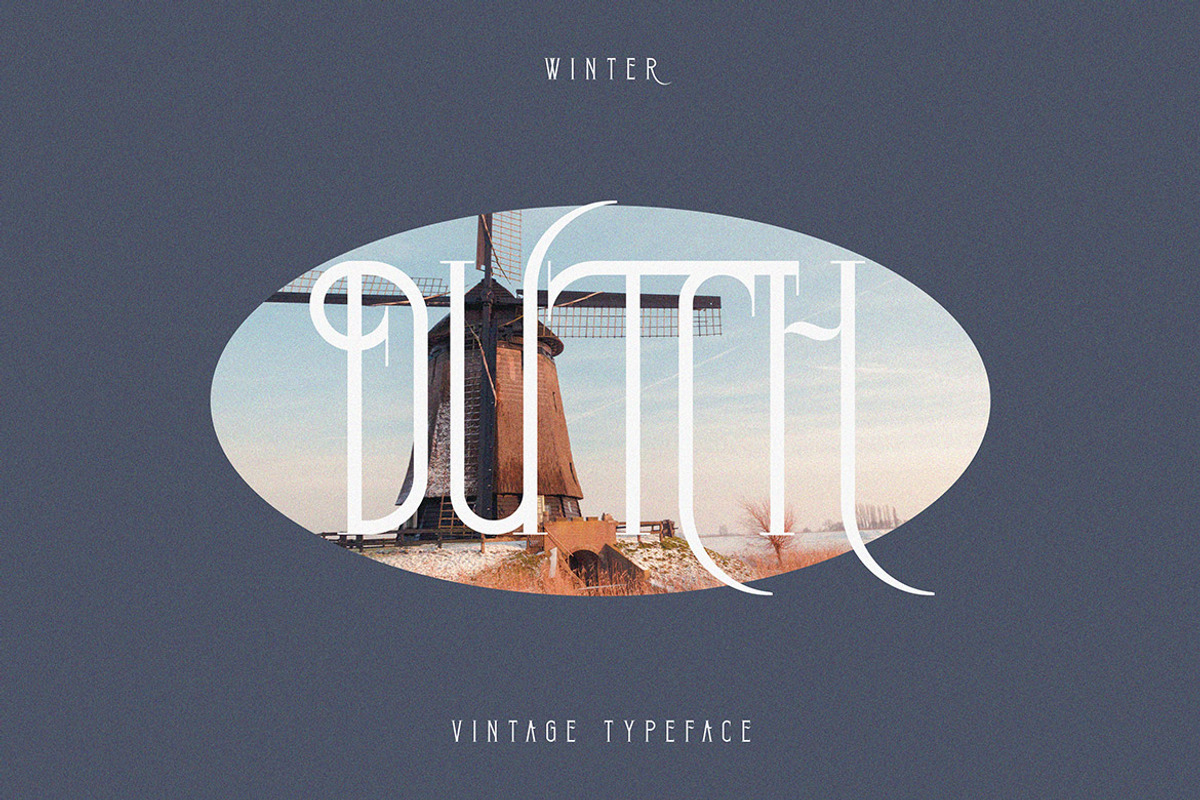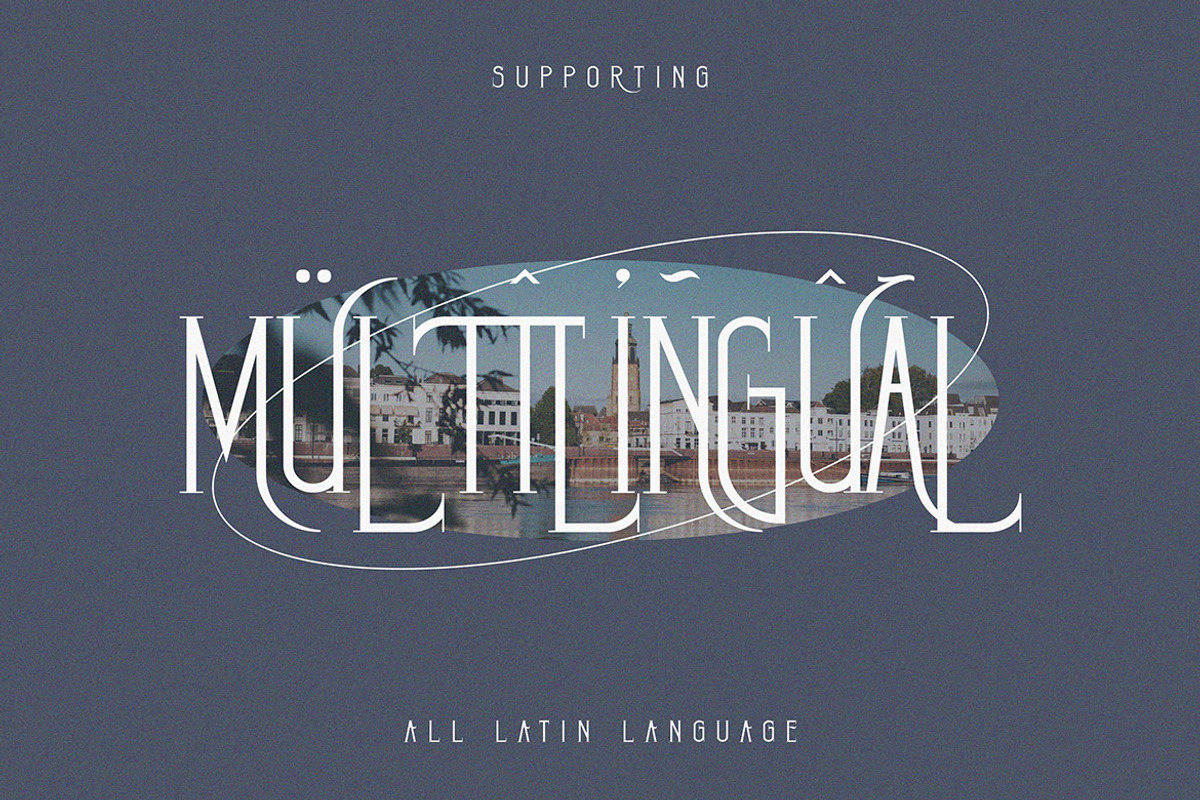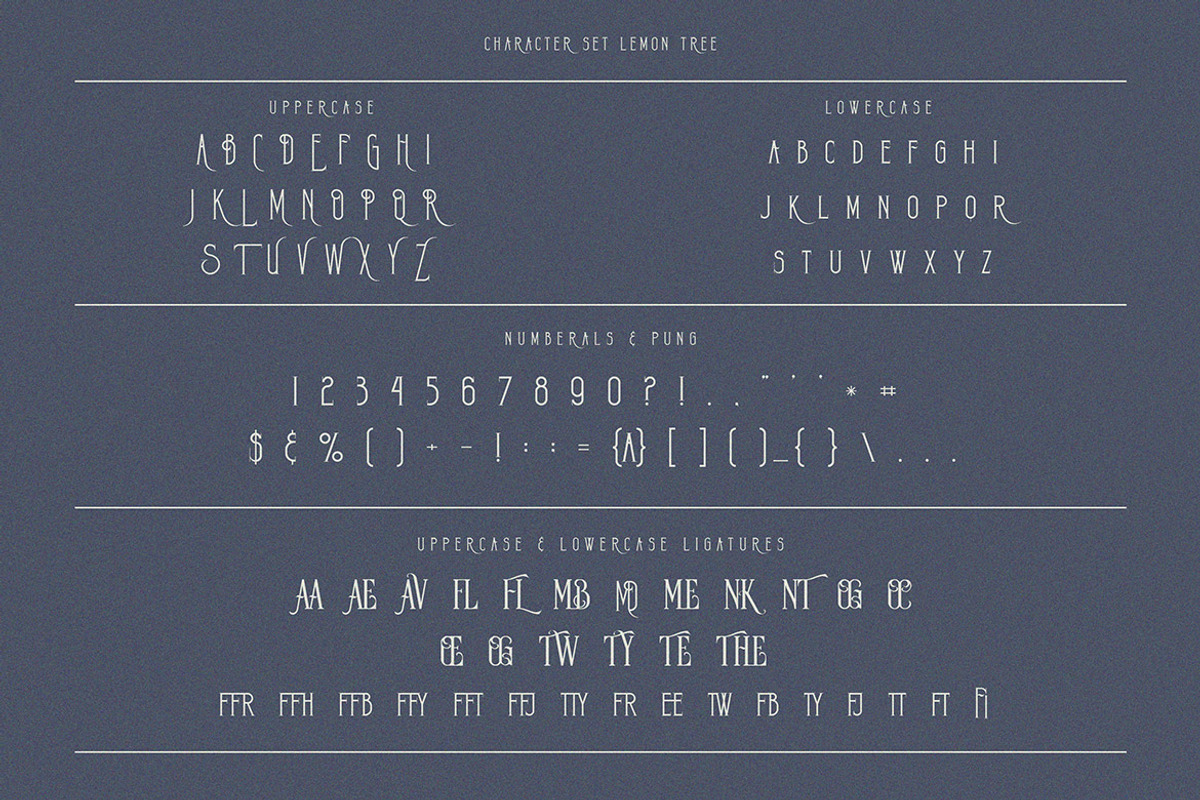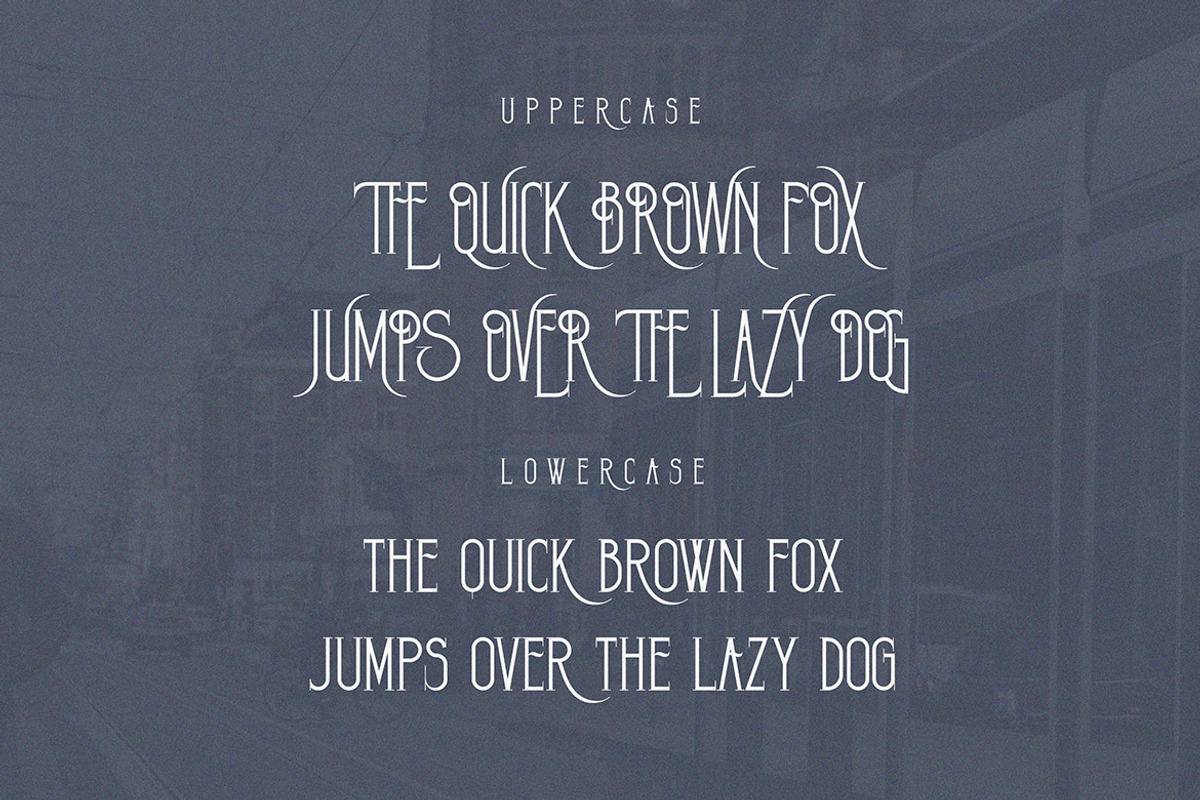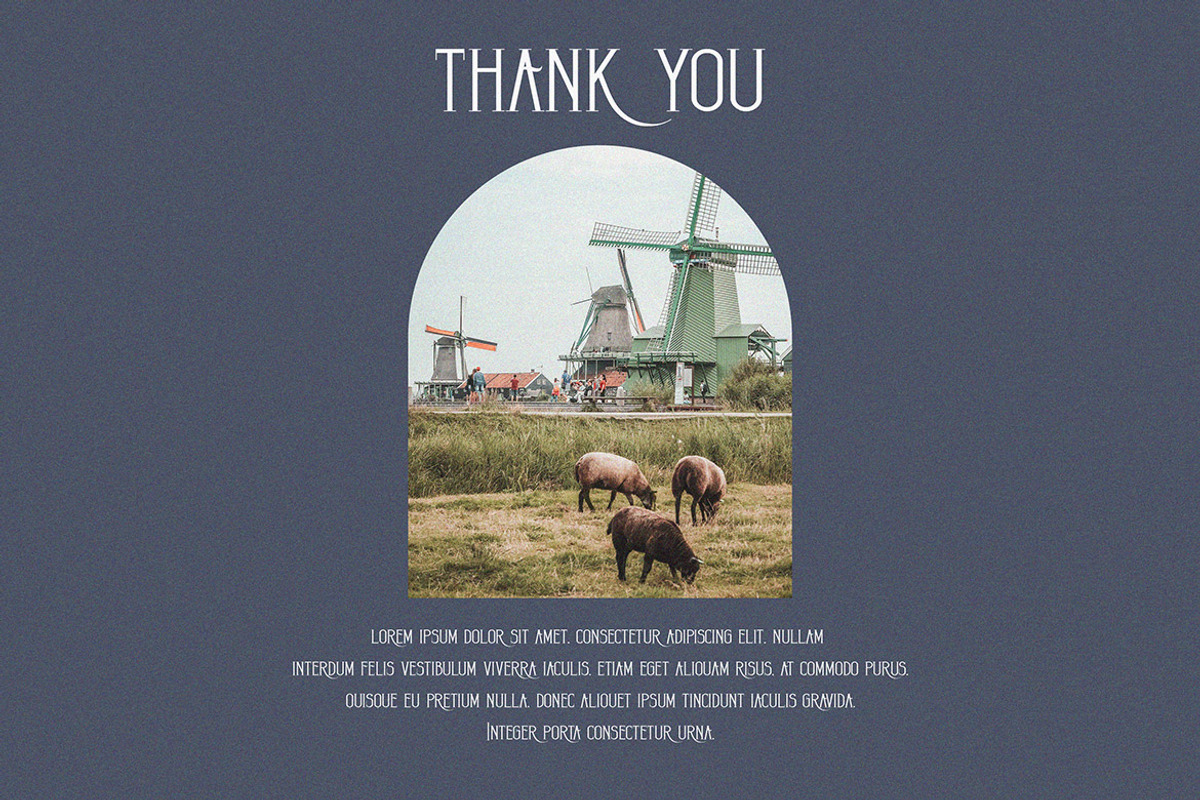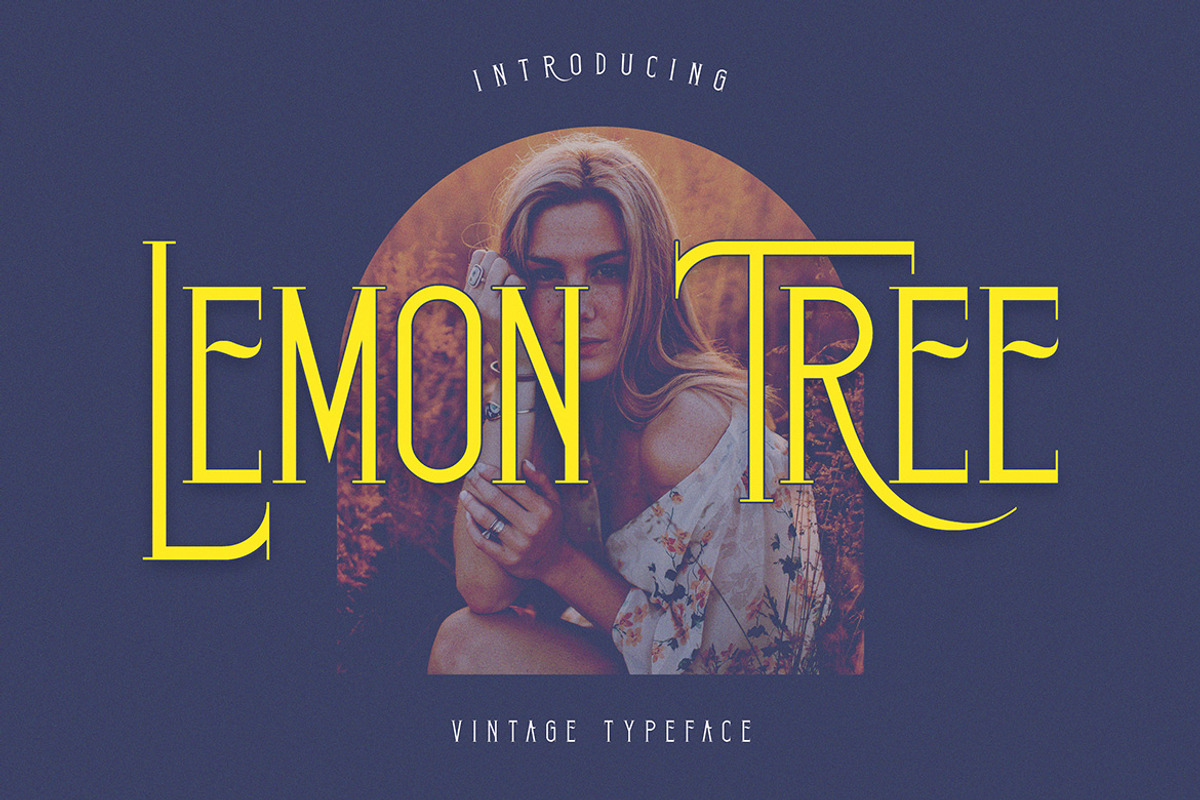
Lemon Tree Vintage Condensed Serif
Vintage, decorative, retro, condensed & classy serif font. Great for your new logo or branding project.
- Great for retro or vintage style branding projects